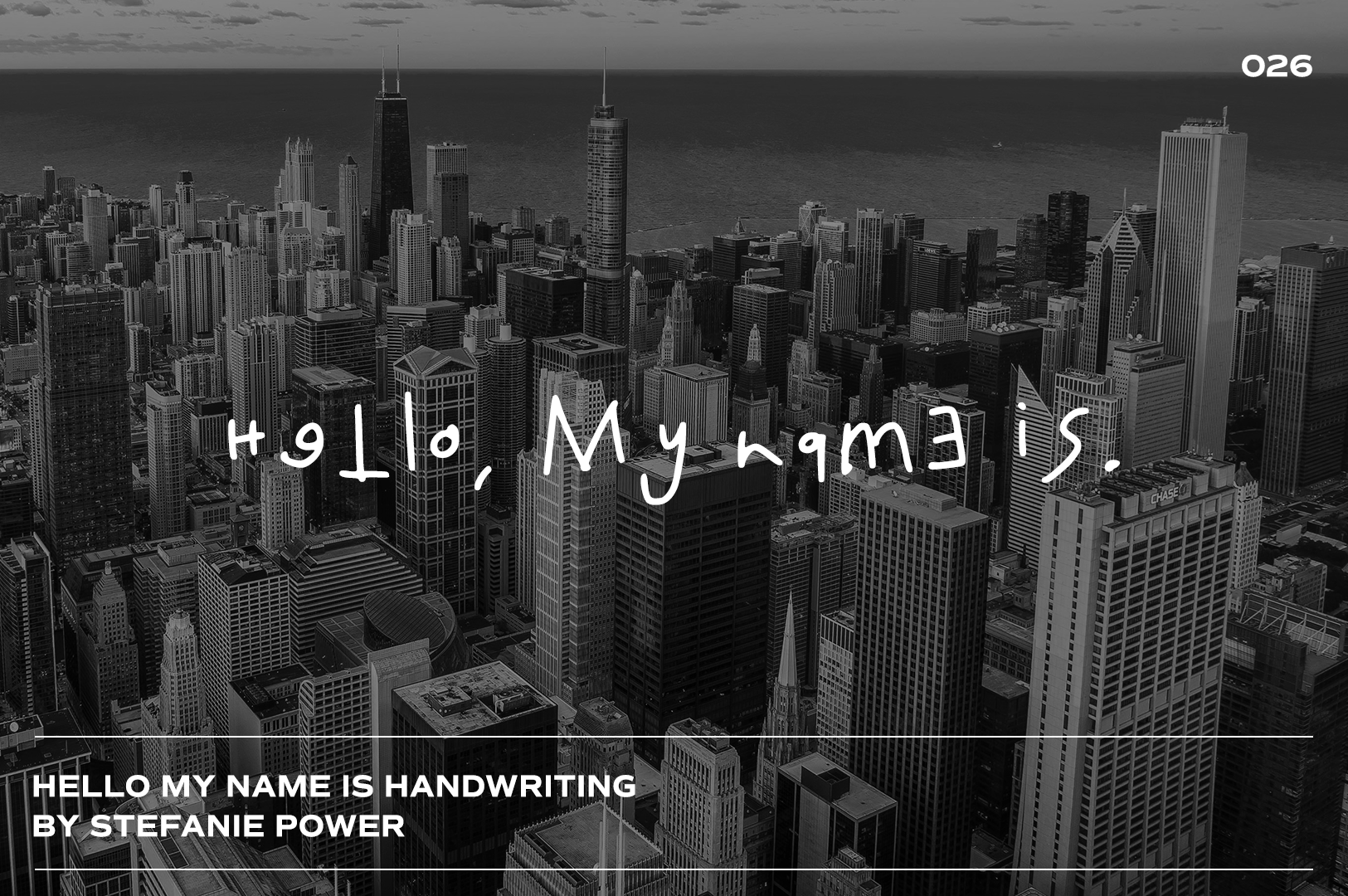
Hello, My Name Is Handwriting | Font
Introducing 'Hey, My Name Is' - a handwritten font that looks like it was written by a three year old.
Hey, My Name Is • A handwritten script font containing upper & lowercase characters and a range of punctuation and numbers.